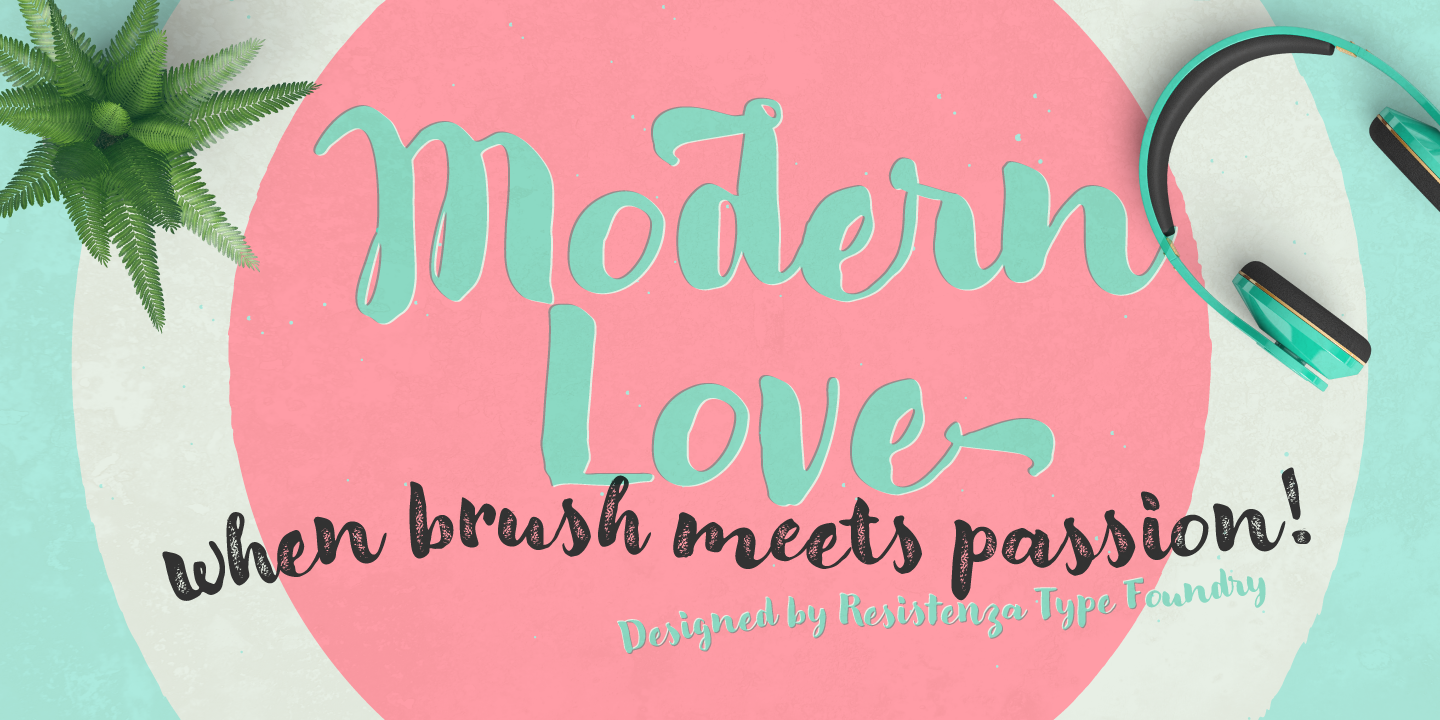
Modern Love Font is perfect for contemporary wedding invitations, romantic lifestyle blogs, dating app interfaces, Valentine's Day campaigns, couple's photography branding, love story book covers, relationship coaching materials, and modern anniversary celebrations.
This font is exciting because it captures the evolving nature of romance in the digital age with elegant, contemporary letterforms that speak to millennial and Gen-Z relationships while maintaining timeless romantic appeal. The Modern Love Font embodies authentic connection and genuine emotion, transforming ordinary text into heartfelt expressions of contemporary love that resonates with today's couples seeking meaningful relationships.
The Modern Love Font family includes romantic variations such as Regular, Bold, Light, Script, Italic, Heart, Condensed, and Extended versions, providing love-focused designers with comprehensive tools to create authentic romantic typography that celebrates modern relationships and contemporary expressions of affection and commitment.
Celebrate contemporary romance with Modern Love Font Free Download that brings authentic emotion to every love-centered design project. This romantically inspired typeface combines modern sensibility with timeless appeal, making it perfect for wedding planners, relationship brands, and lifestyle companies celebrating love in all its contemporary forms. The font's expressive character design ensures your message feels genuine and heartfelt while maintaining excellent readability across all romantic applications. Whether you're creating wedding stationery, developing dating platform branding, or designing materials that celebrate modern relationships, Modern Love Font delivers the emotional typography that connects with couples seeking authentic, meaningful connections. Its versatile design works beautifully across digital and print media while preserving the genuine warmth that makes romantic communications feel like personal love letters written for the Instagram generation that values both digital connection and real emotional authenticity.